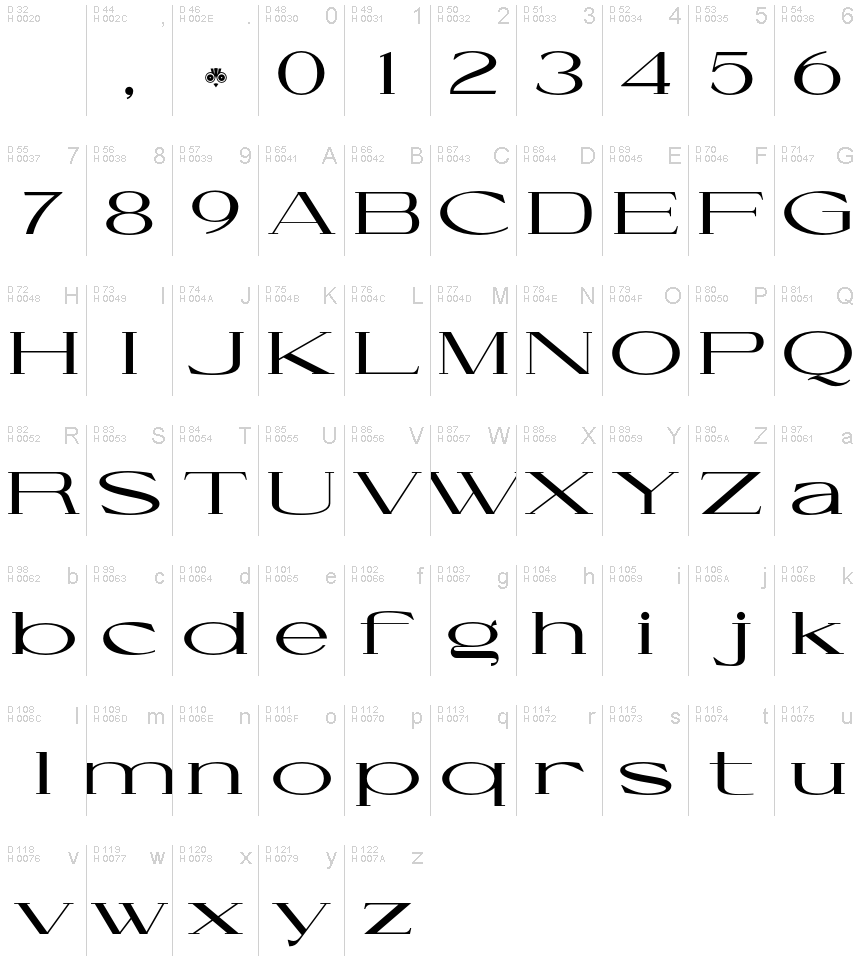
Cellofy Bold ExtraExpanded font, from the Cellofy family designed by Owlking Project, is a striking serif typeface. Its expanded style lends an air of regal elegance and grandeur, making it perfect for creating captivating headlines or sophisticated branding materials. This free font for personal use combines traditional serif artistry with a modern twist, offering versatility across various design contexts.
Ideal for posters, book covers, and luxury branding, Cellofy Bold ExtraExpanded stands out with its bold presence and refined details.